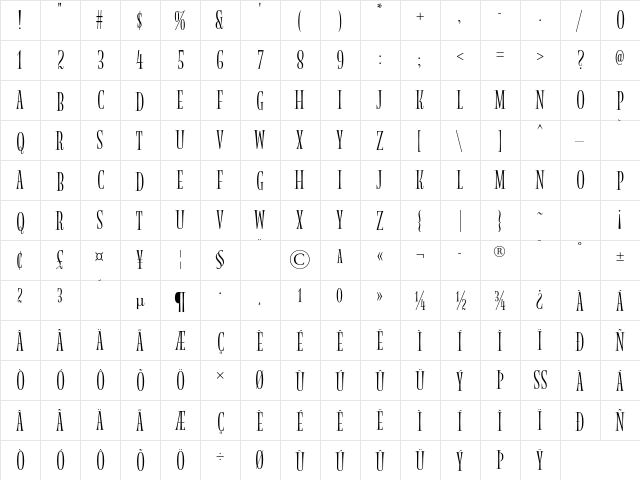
Magnolia MVB Std Regular
| Designer | Mark van Bronkhorst |
Design Context for Magnolia MVB Std Typeface
Magnolia MVB Std takes a measured approach to typography — its balanced proportions and neutral character make it a reliable workhorse for both digital and print work.